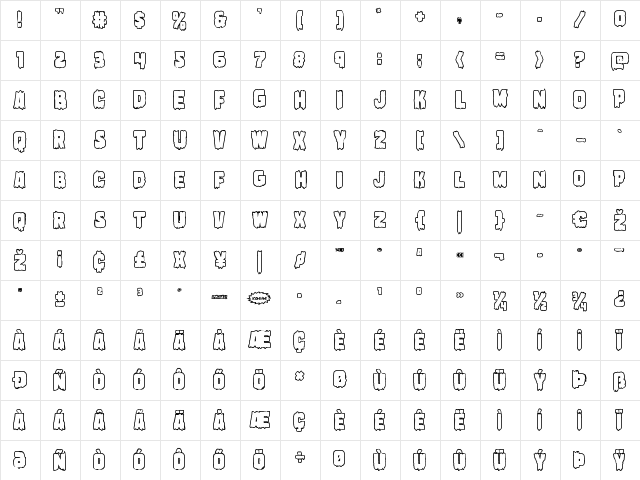
Marsh Thing Bold Outline Bold
Design Context for Marsh Thing Bold Outline Typeface
Marsh Thing Bold Outline brings ornamental detail and strong personality to headlines and identities, where visual impact matters more than quiet functionality. The heavy weight commands attention and anchors typographic hierarchies.
Font Pairing: Pair with a clean neutral sans-serif for body copy to let Marsh Thing Bold Outline's character lead without overwhelming the composition.
Pro Tip: Use Marsh Thing Bold Outline exclusively at display sizes — it was designed to be seen, not read at length. Let a neutral companion handle body copy.